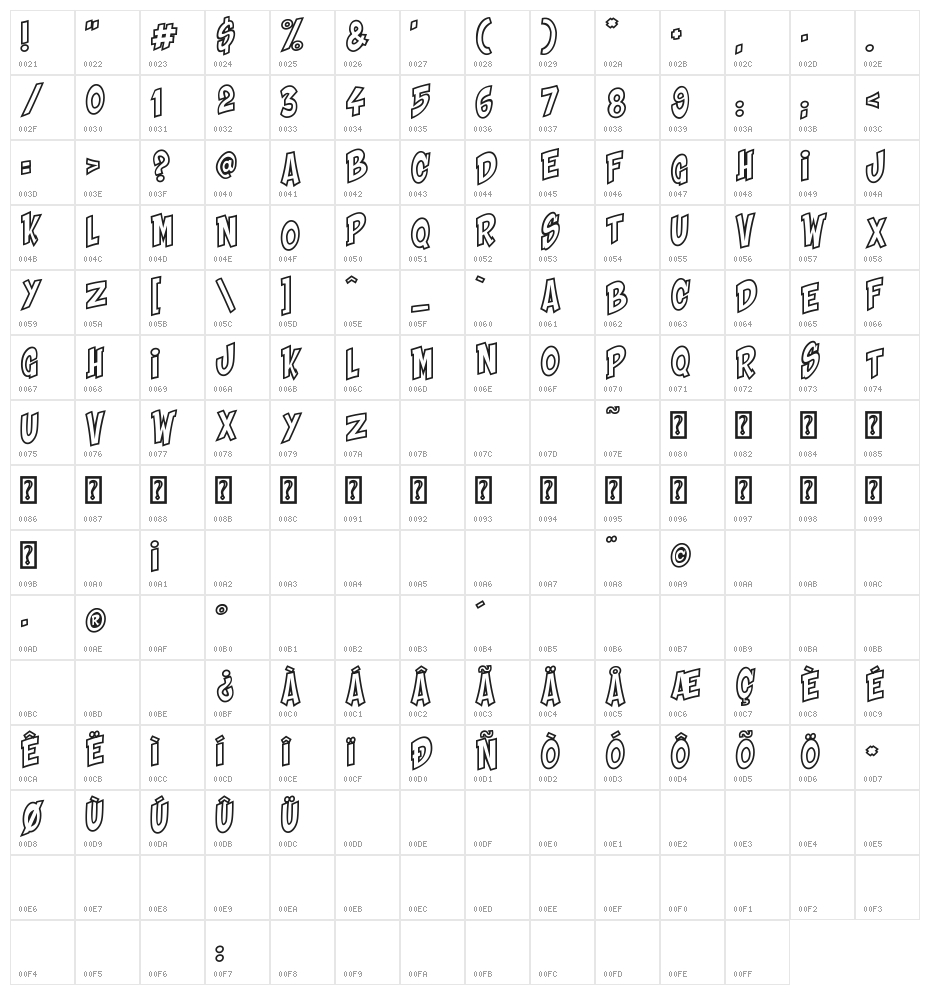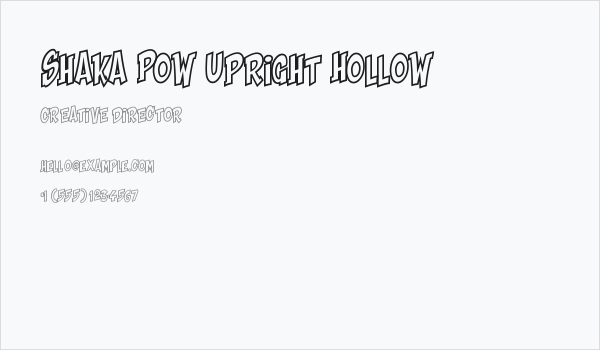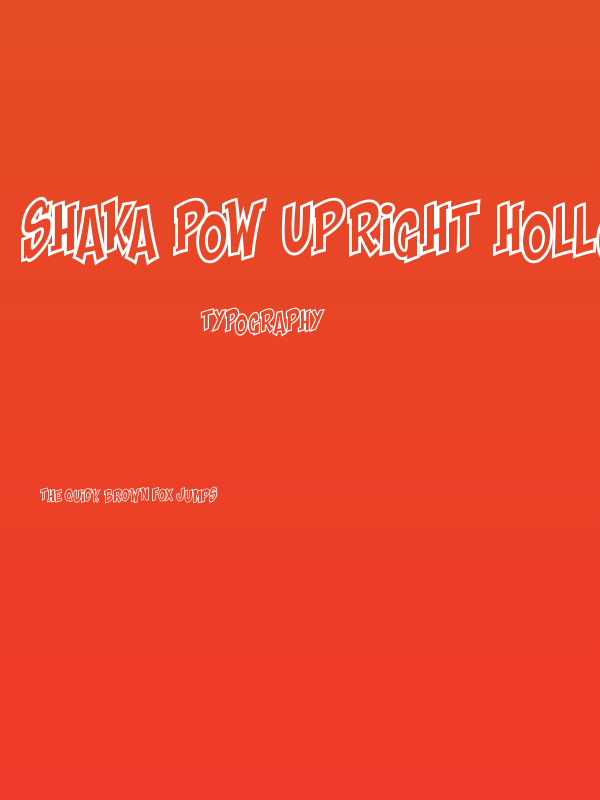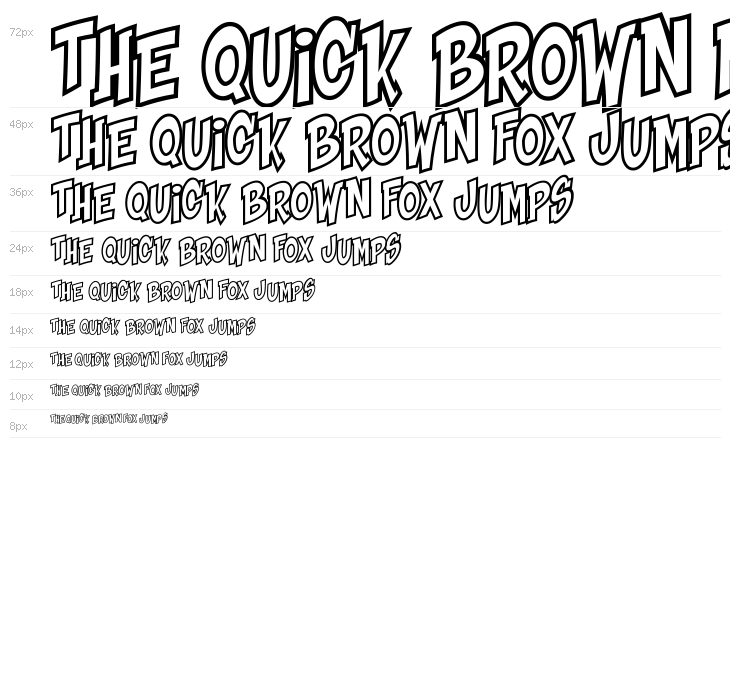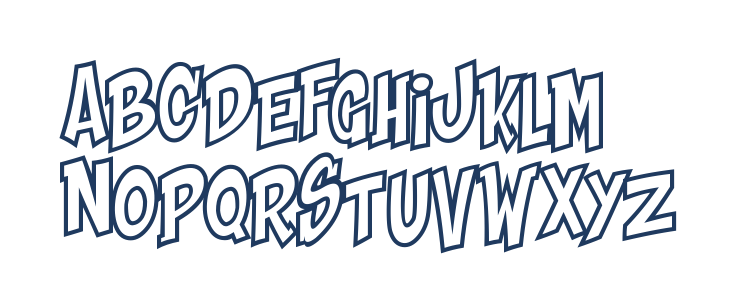
Shaka Pow Upright Hollow Font
Shaka Pow Upright Hollow Description
This font features a bold, playful style with a hollow interior, giving it a dynamic and energetic appearance. The letters are uppercase and lowercase with a consistent, thick outline that enhances readability while maintaining a fun, cartoonish vibe. The numbers and special characters follow the same design, ensuring uniformity across all glyphs. The exaggerated curves and angles add a sense of movement and excitement, making it ideal for eye-catching designs. Its unique style is perfect for projects that require a lively and engaging typeface.
| Overall Style | Playful, Energetic, Cartoonish |
| Use Case | Headlines, Posters, Branding |
| Proposed Projects | Ideal for comic books, children's books, posters, and playful branding. |